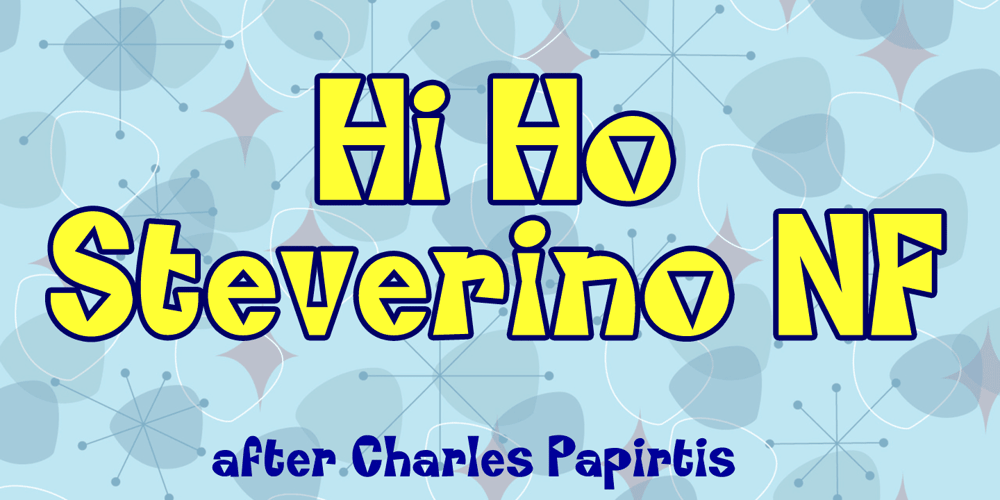
Hi Ho Steverino NF Font Family was designed by published by Nick’s Fonts. Hi Ho Steverino NF contains 1 styles and family package options. Here’s a hipster face that evokes the Beat era, taking its name from Louis Nye’s catchphrase on “The Steve Allen Show.” Both versions of this font support the Latin 1252, Central European 1250, Turkish 1254 and Baltic 1257 codepages.